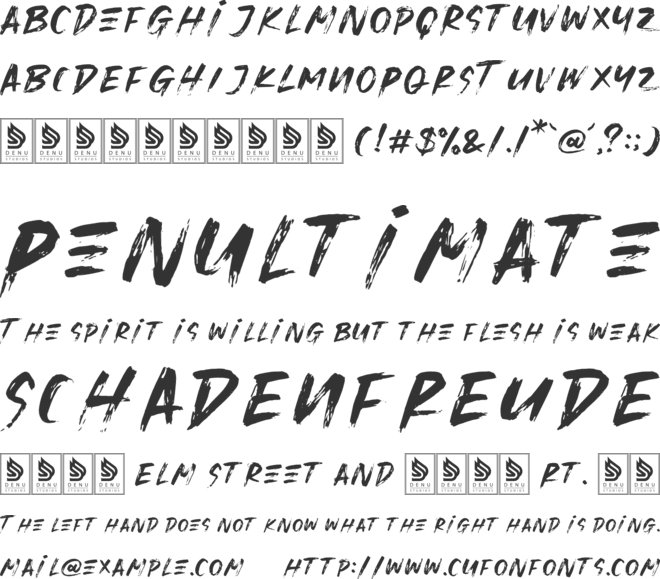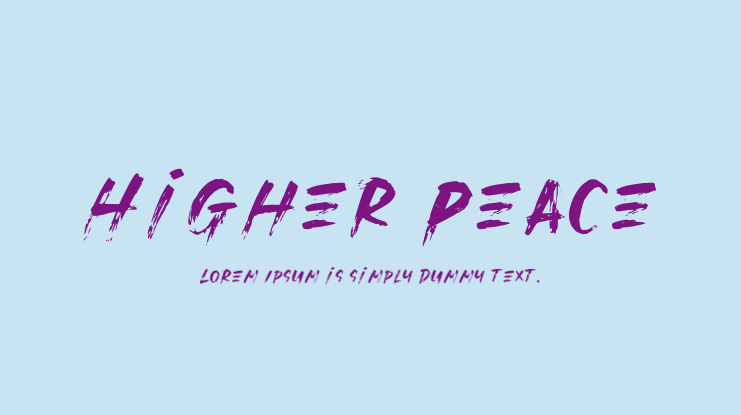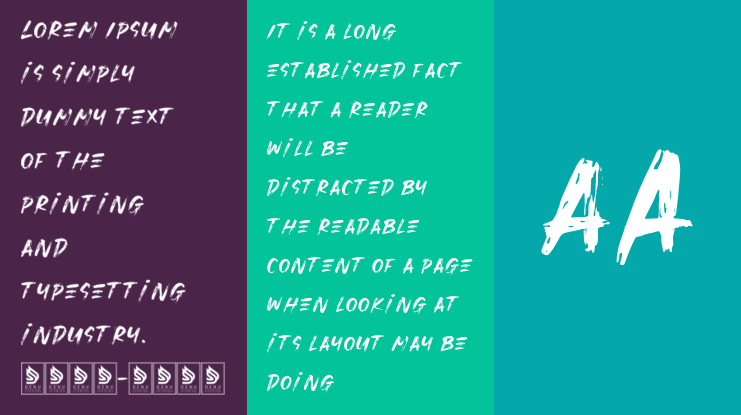
Higher Peace Font Family
Higher Peace | Rough Brush Duo Font is suitable for various projects such as:
• Logos
• Branding projects
• Homeware designs
• Product packaging
• Mugs
• Quotes
• Posters
• Shopping bags
• T-shirts
• Book covers
• Name cards
• Invitation cards
• Greeting cards
• Labels
• Photography
• Watermarks
• Special events
• And all your other lovely projects that need a Rough Brush Duo Font taste